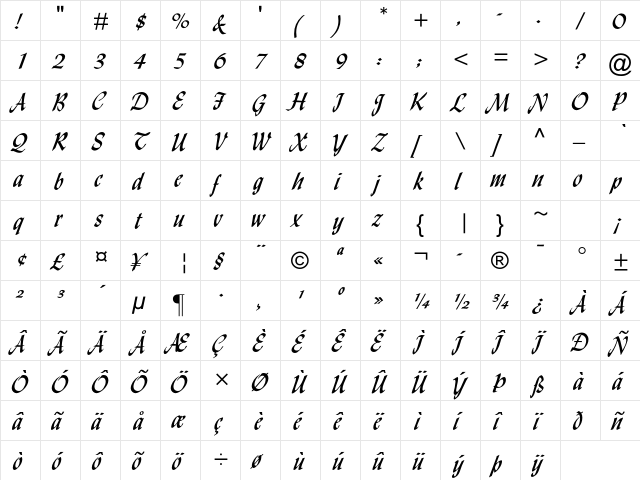
Lydian MT Std Cursive
Design Context for Lydian MT Std Typeface
Lydian MT Std flows with the natural rhythm of handwritten lettering, making it ideal for designs that call for warmth and personal expression.
Font Pairing: Combine Lydian MT Std with a simple geometric sans for maximum contrast — the tension between flowing curves and clean structure is a classic typographic pairing.
Pro Tip: Use Lydian MT Std for short runs of text — names, titles, or taglines. Extended body copy in script faces tires the eye quickly.